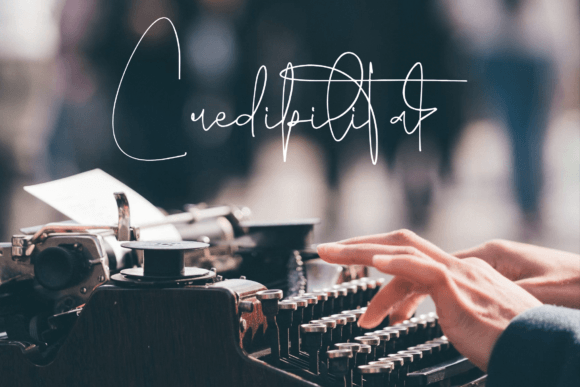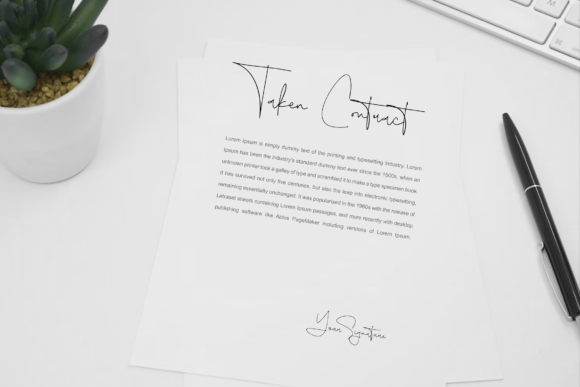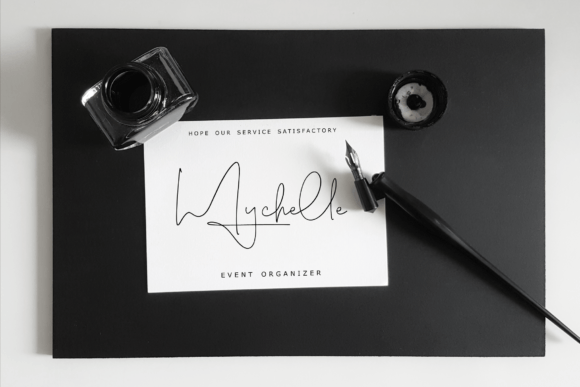
Introduction to Restonasi Font
Restonasi is a realistic signature script font.
Its exquisite and stylish characters will help you create stunning logos, business cards, wedding invitations, and more .
Why Choose Restonasi Font?
Restonasi Font offers exceptional quality and versatility, making it a valuable addition to your design toolkit. Whether you’re creating for personal projects or commercial use, Restonasi Font delivers professional results.